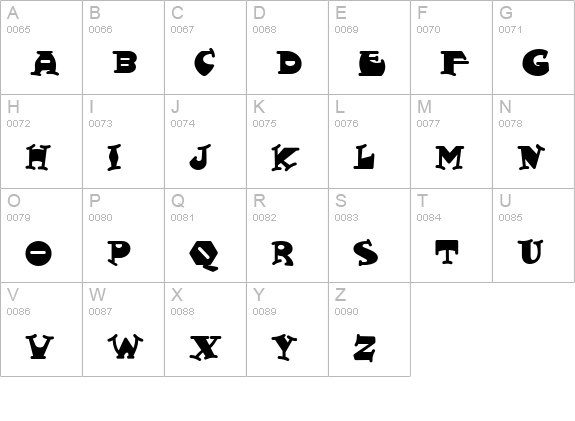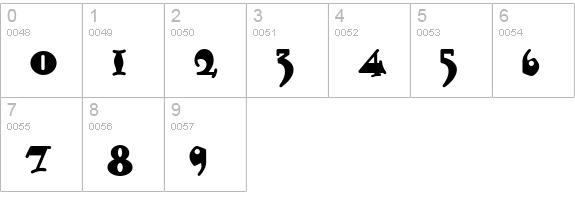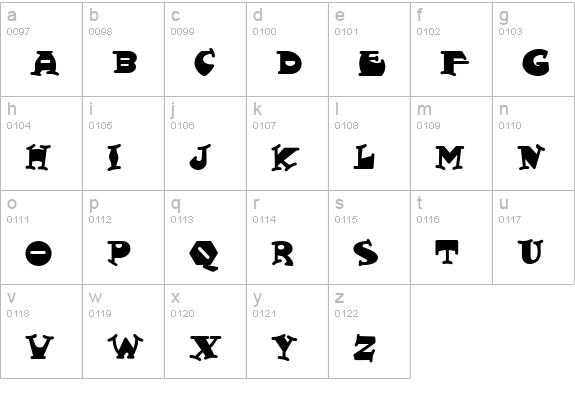
Fatty Snax NF Font Details
Fatty Snax NF font is a delightful and whimsical typeface that brings a touch of playfulness to any design project. With its chubby, rounded letters and friendly appearance, this font is perfect for creating eye-catching headlines, posters, and packaging designs. Fatty Snax NF font is both fun and legible, making it a versatile choice for a wide range of creative applications. What's even better is that Fatty Snax NF font is completely free to download at FontsMarket.com. Yes, you read that right - this charming font is available at no cost, allowing you to add a touch of personality to your projects without breaking the bank. So go ahead and give Fatty Snax NF font a try - it's sure to bring a smile to your audience's faces!